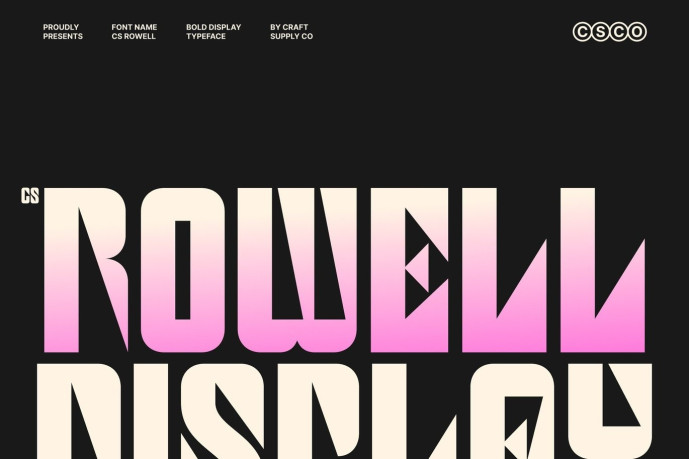
Rowell – Bold Display Font
Designer: Craft Supply Co.
CS Rowell – Bold Display Font: Where Industrial Precision Meets Futuristic Impact Compact Proportions with Sharp Angular Cuts This is a bold display font featuring compact proportions, sharp angular cuts, and a commanding visual presence. Its tightly constructed letterforms maximize impact while maintaining excellent readability, making it ideal for bold headlines and attention-grabbing branding. The angular details give each character a dynamic, high-performance appearance that feels modern and distinctive.
Futuristic Geometry with Industrial Character Inspired by industrial design and futuristic aesthetics, this font combines clean geometric construction with precision-cut forms to create typography that feels powerful, technical, and forward-thinking. Its structured design communicates confidence and innovation, making it an excellent choice for projects that require a bold contemporary identity.
Strong Typography with Modern Versatility By blending compact proportions with sharp geometric detailing, that creates a distinctive visual identity that balances strength with clarity. Its bold forms perform exceptionally well across both print and digital media, delivering typography that is memorable, energetic, and built for maximum visual impact.
Perfect for Posters, Gaming, and Impactful Headlines Perfect for posters, gaming graphics, technology branding, logos, editorial headlines, packaging, advertising campaigns, merchandise, and contemporary visual identities. Its futuristic industrial character and bold display construction make it ideal for projects that communicate innovation, performance, and modern confidence.